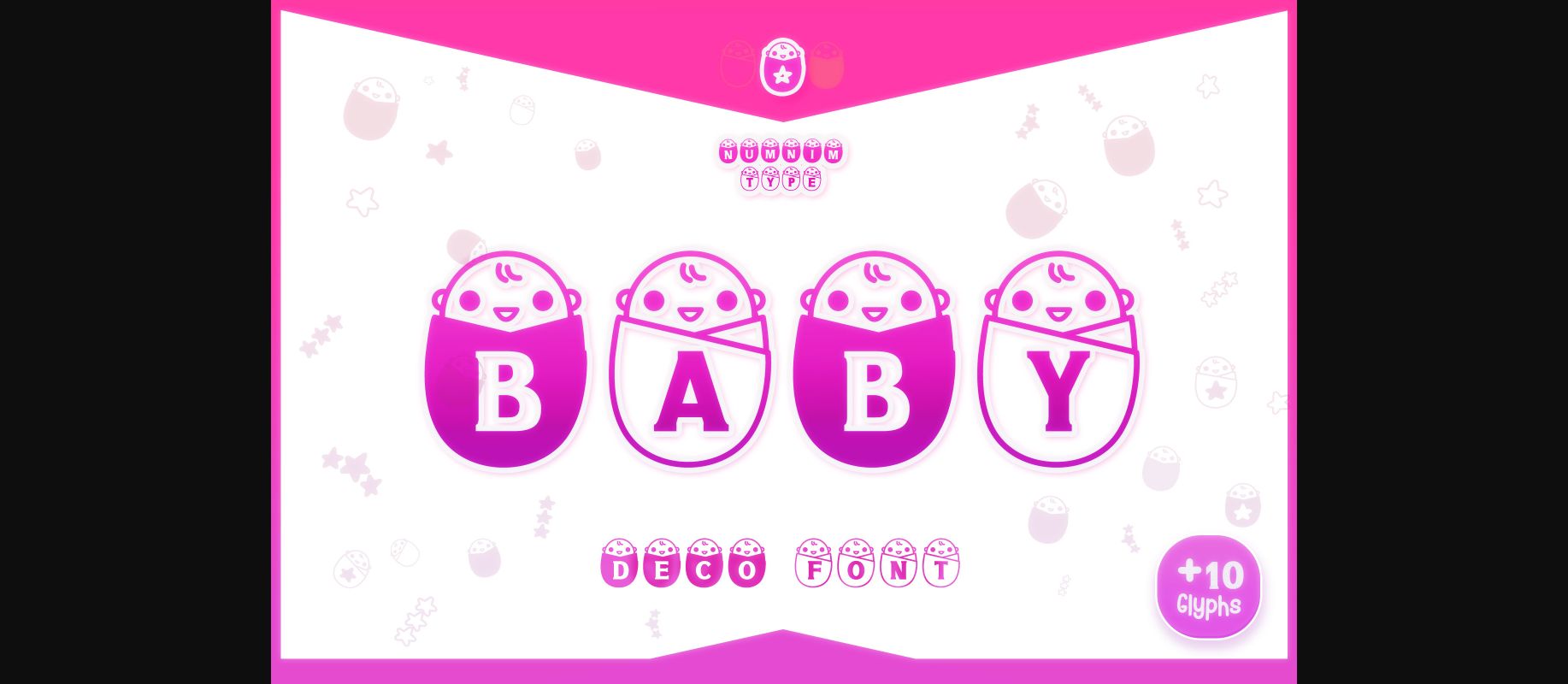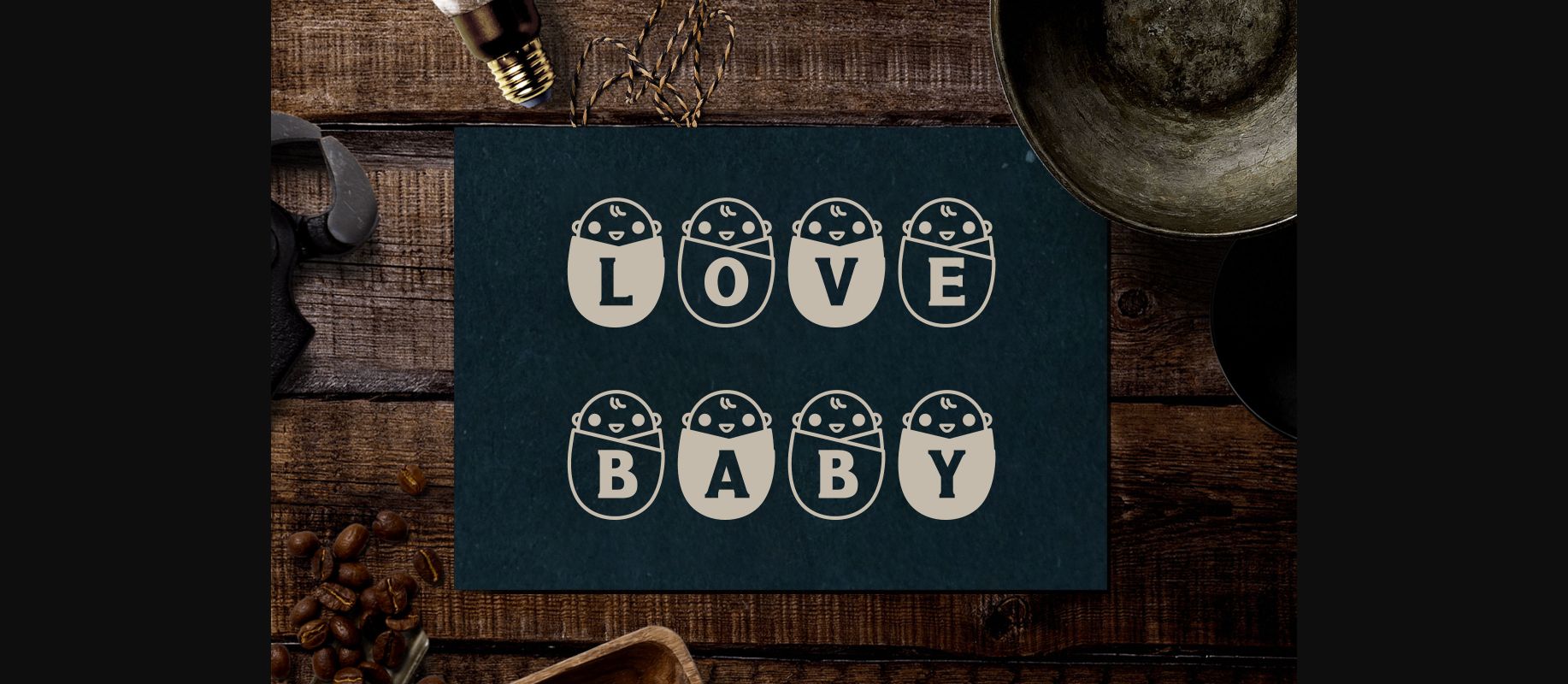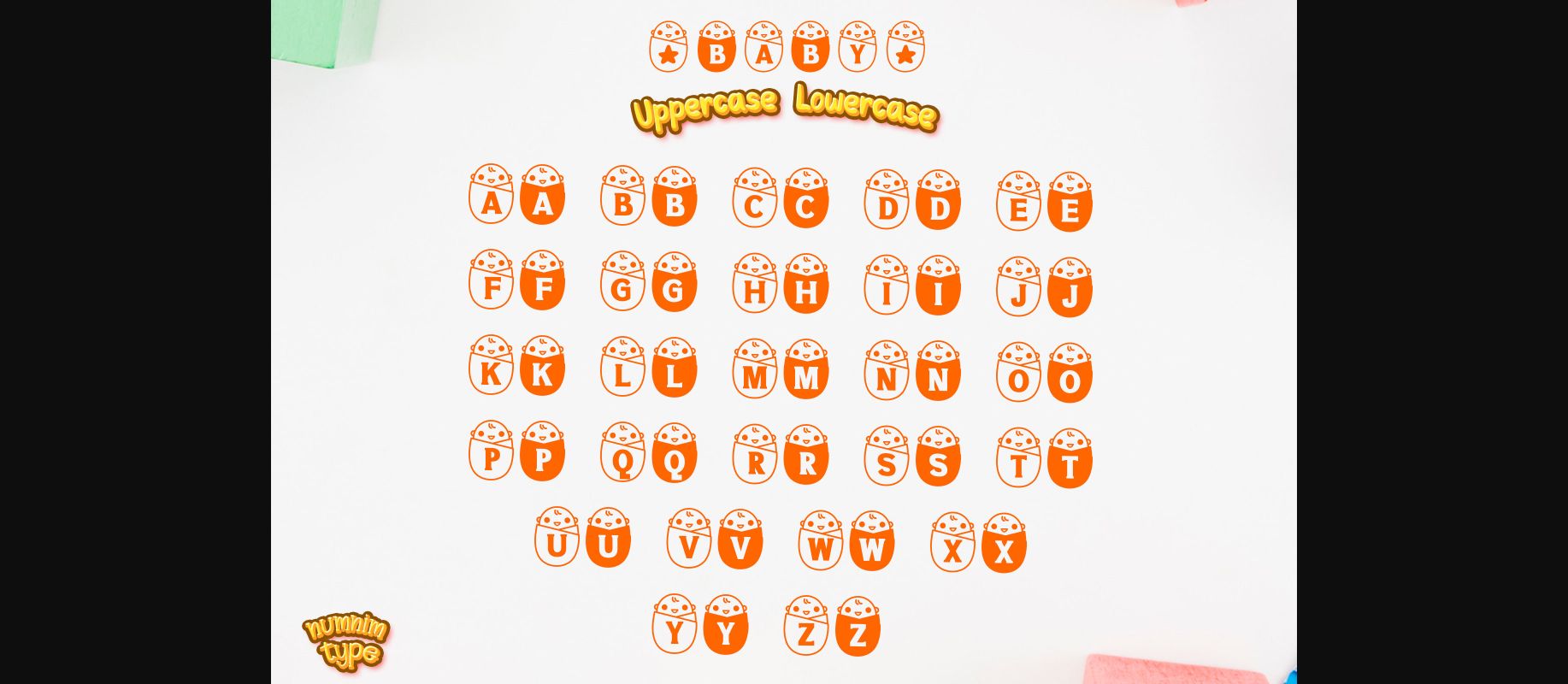
About Baby Font
Baby is a cool and uniquely designed decorative font. Each character is fun and playful, perfect for adding a bold accent to your upcoming designs! It is PUA encoded which means you can access all of the glyphs and swashes with ease!